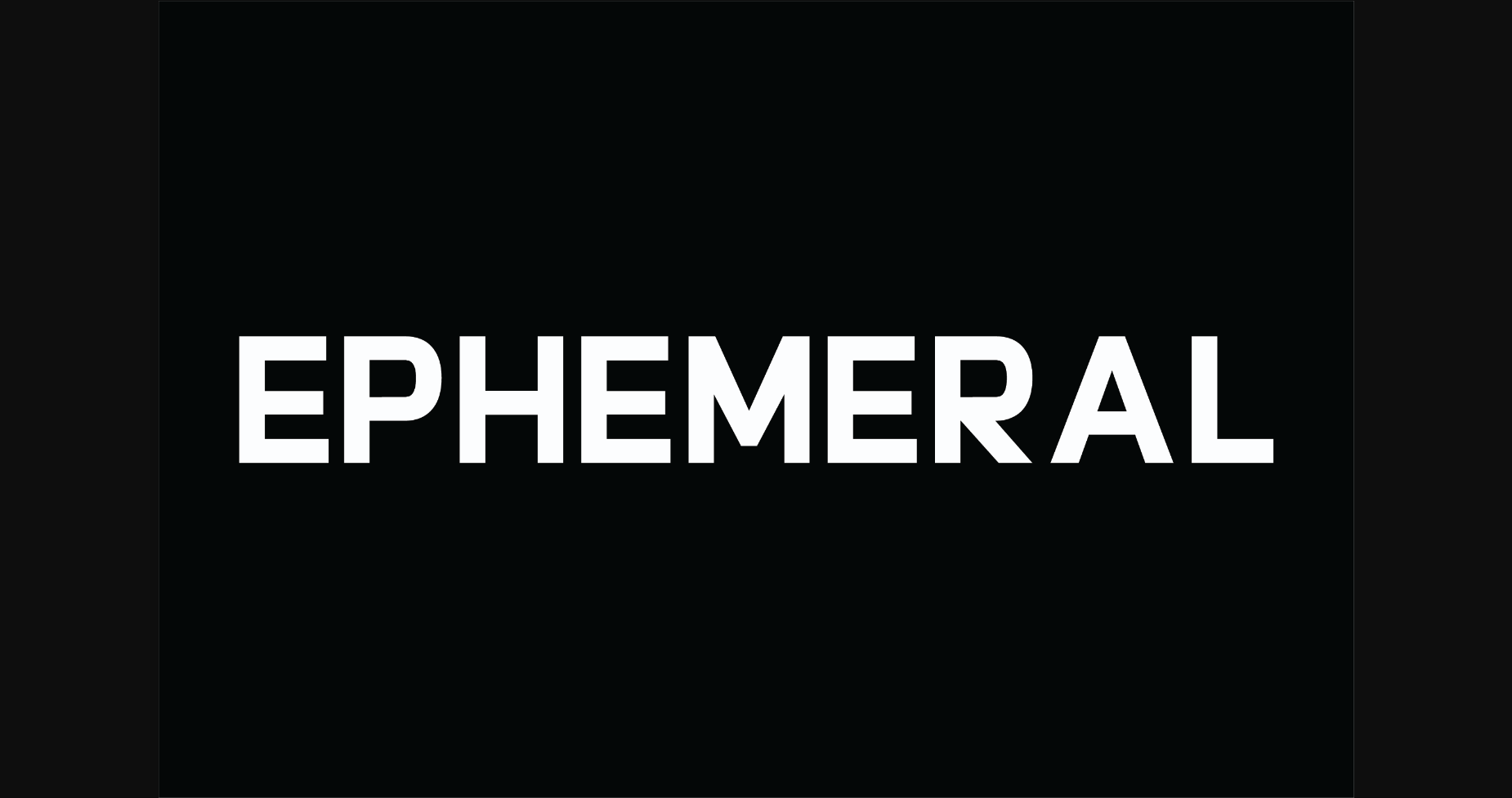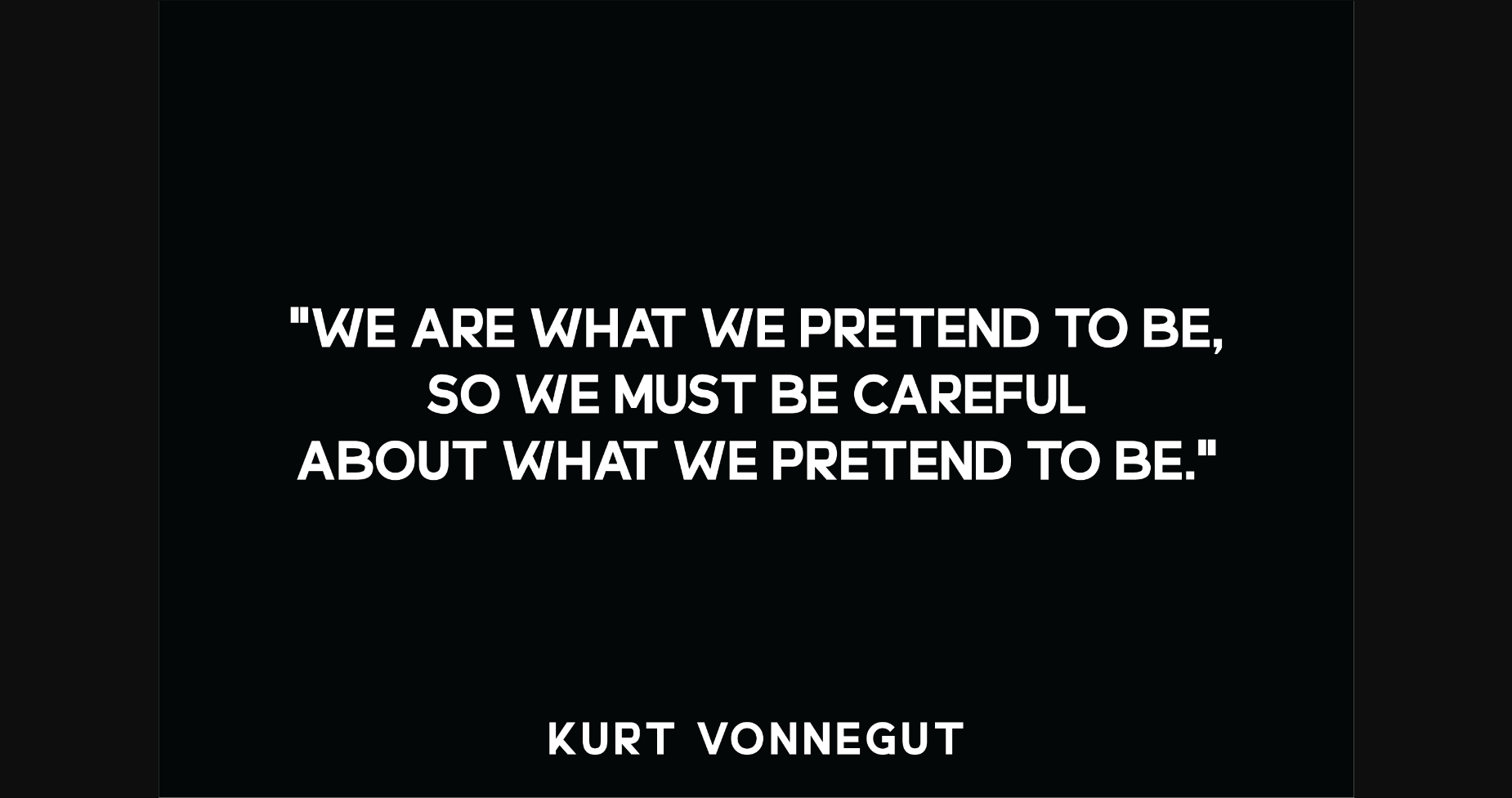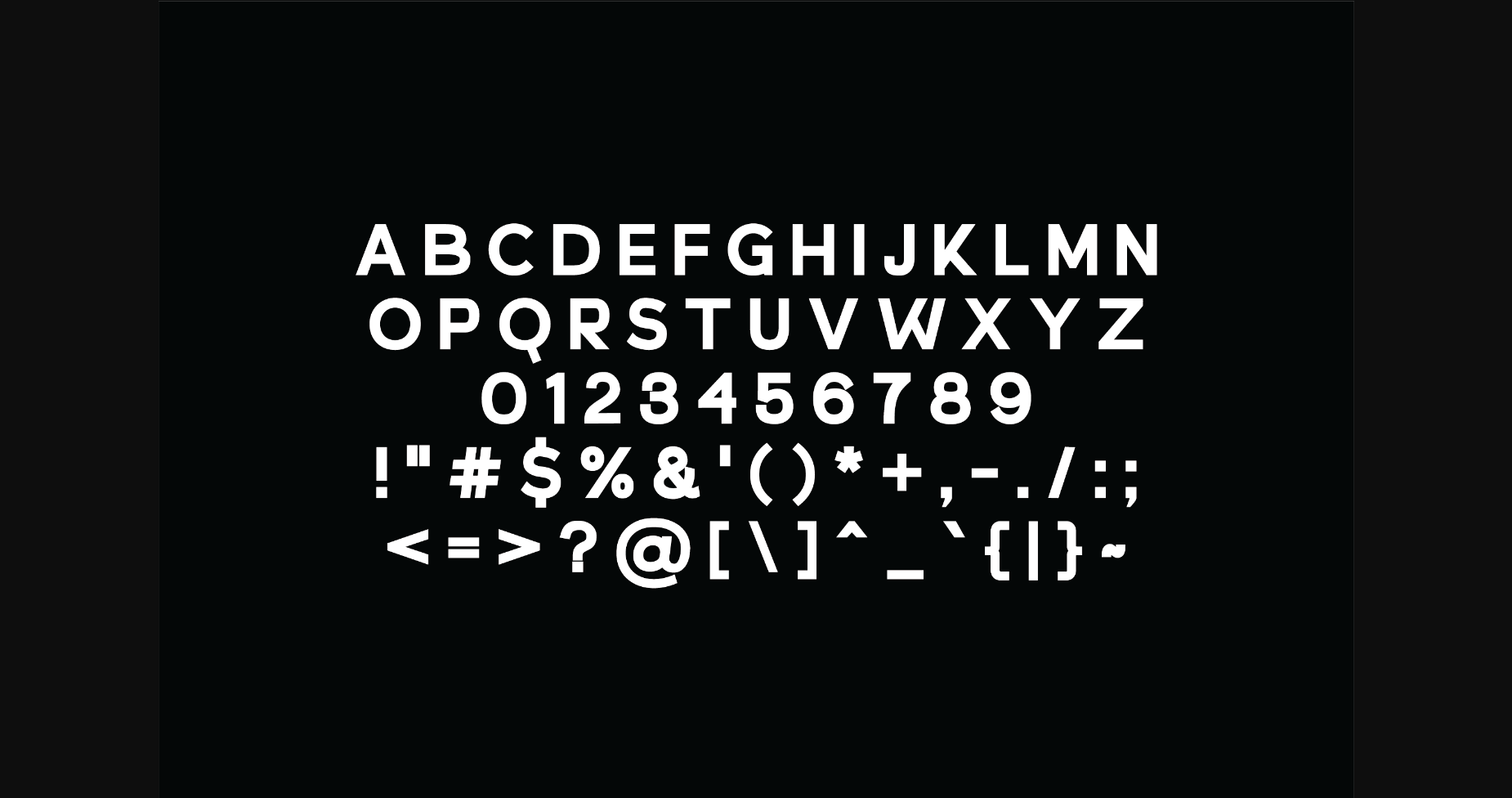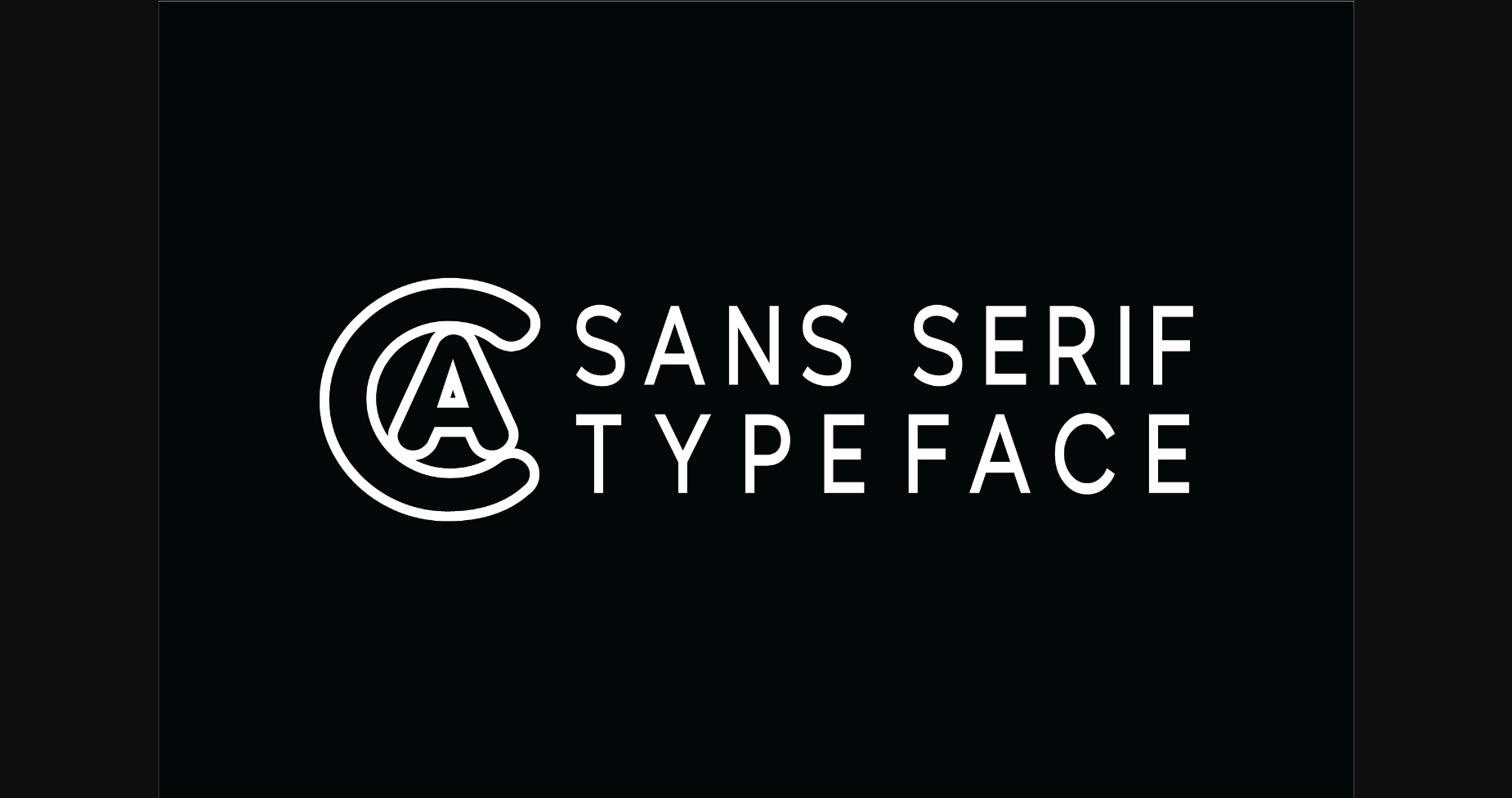
Ephemeral Font
About Ephemeral Font
Ephemeral is a versatile, modern, and classy sans serif font perfect for logos, weddings, invitations, quotes, advertisements, print, magazines, and more. Add it to your most creative ideas, and notice how it makes them come alive!